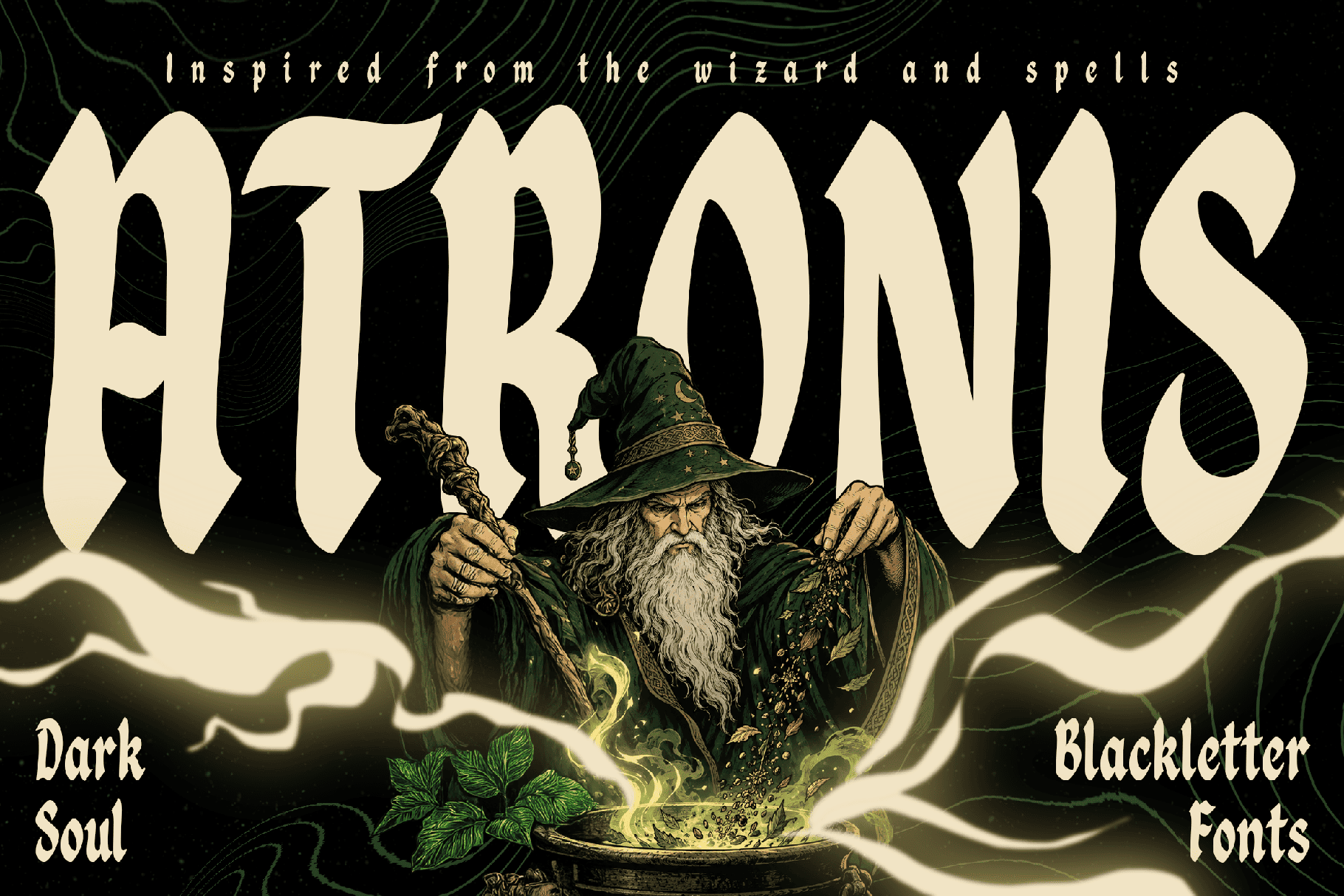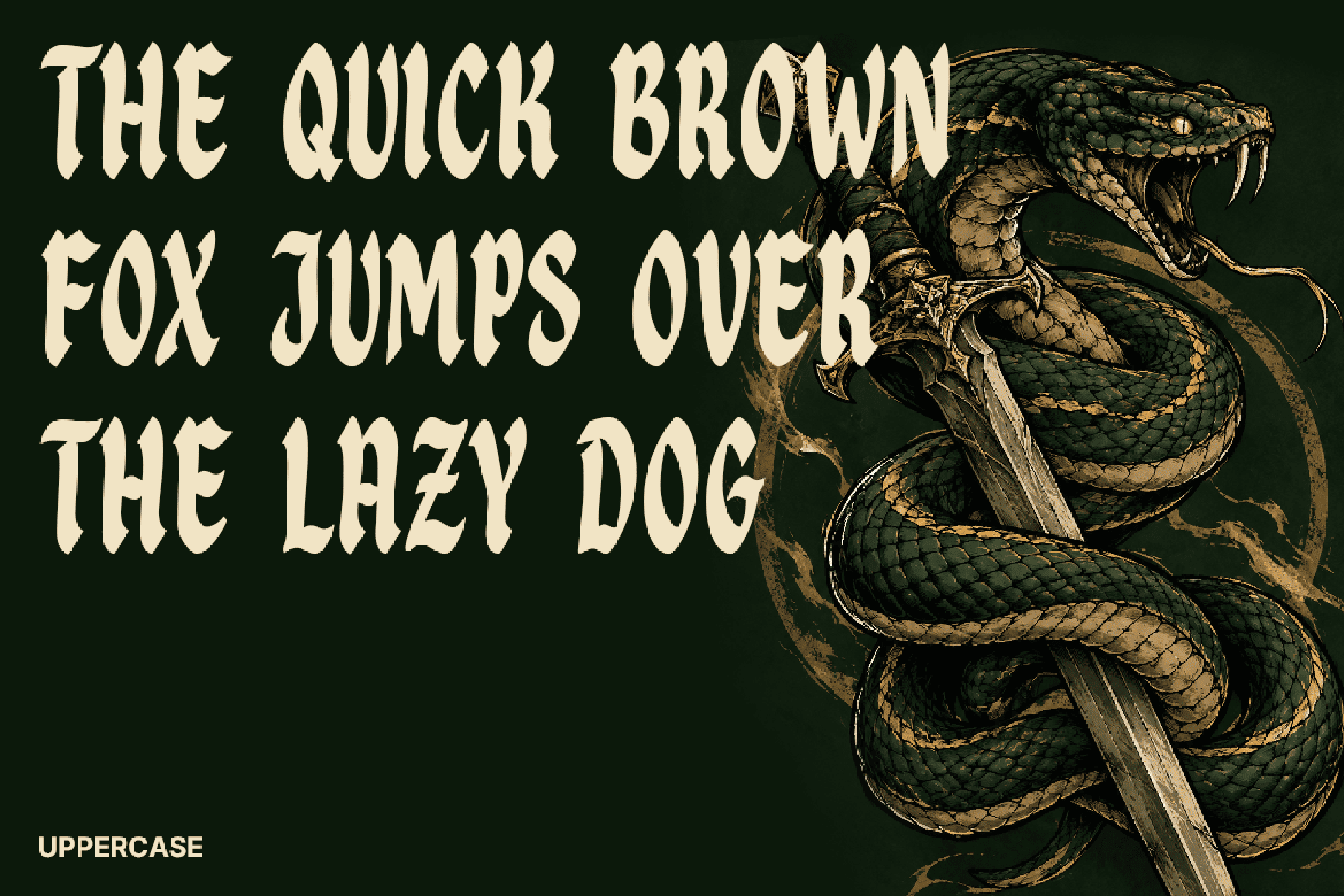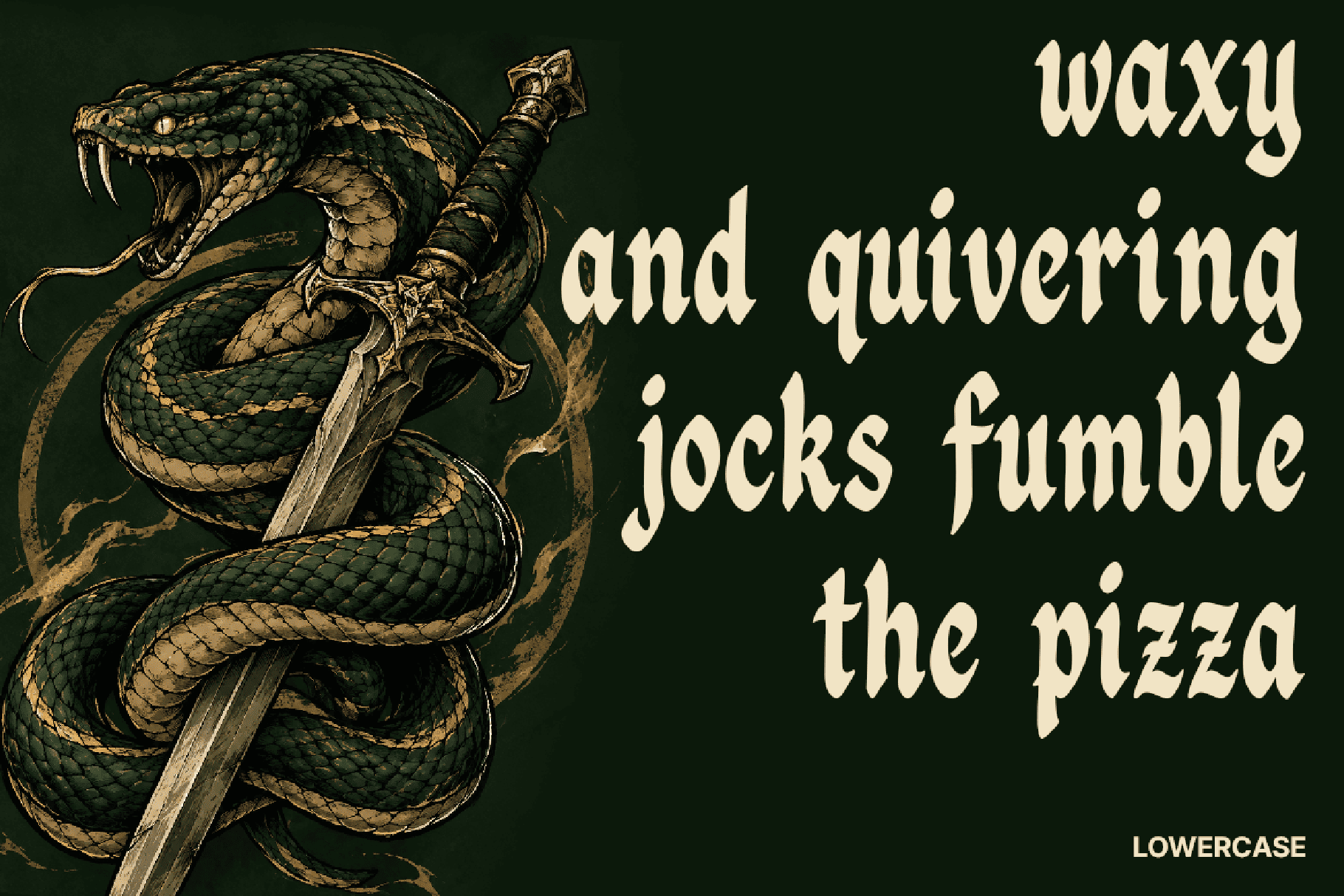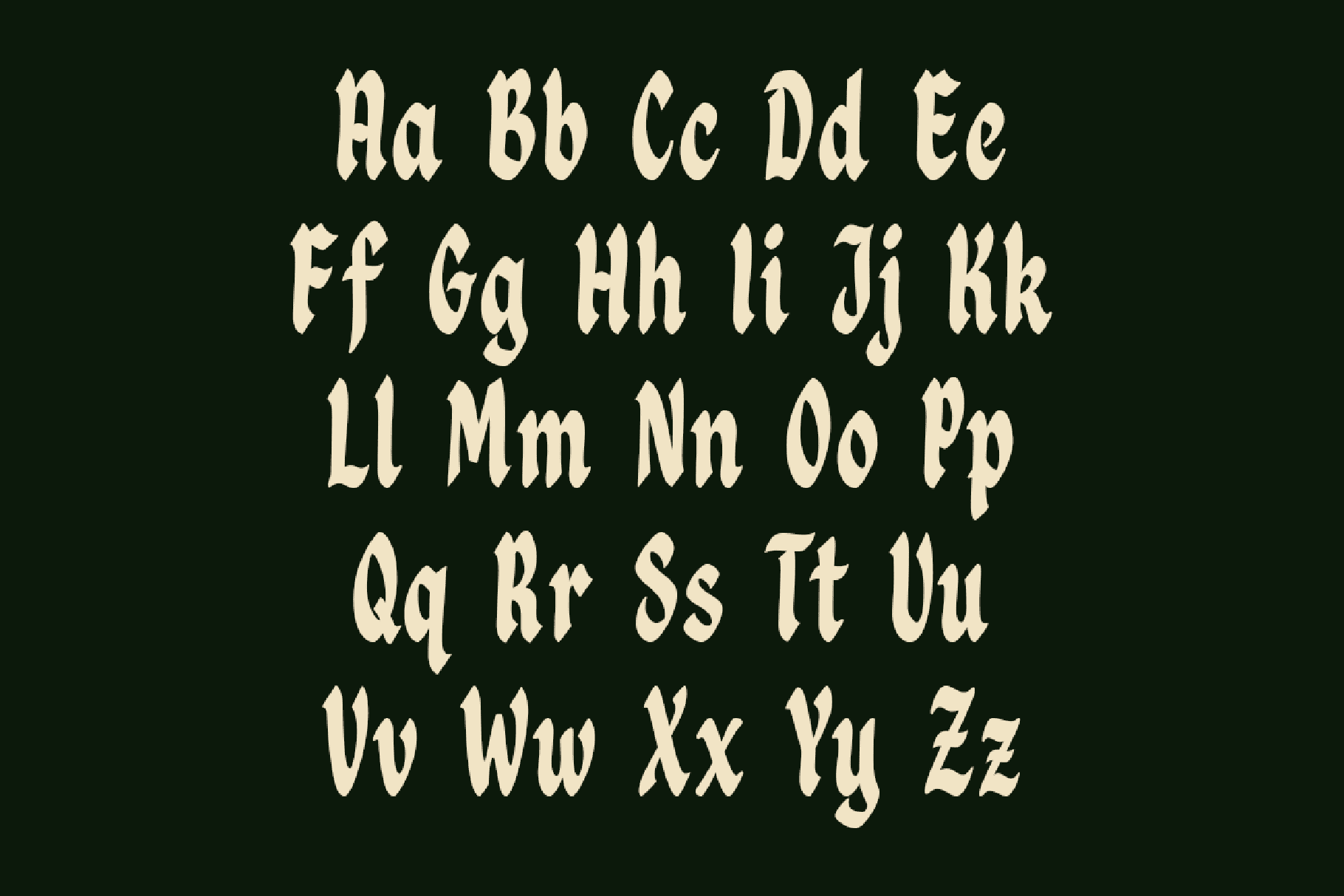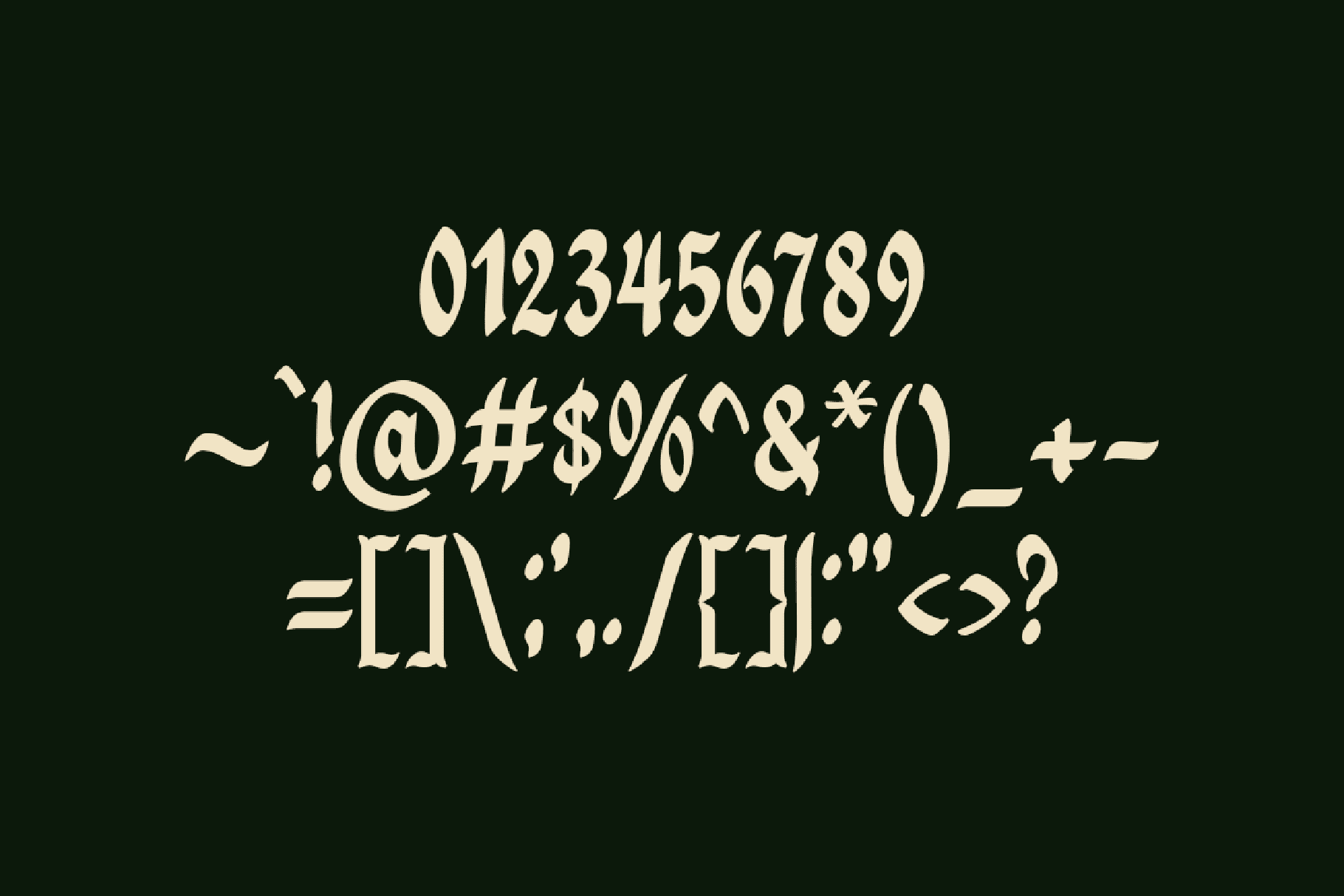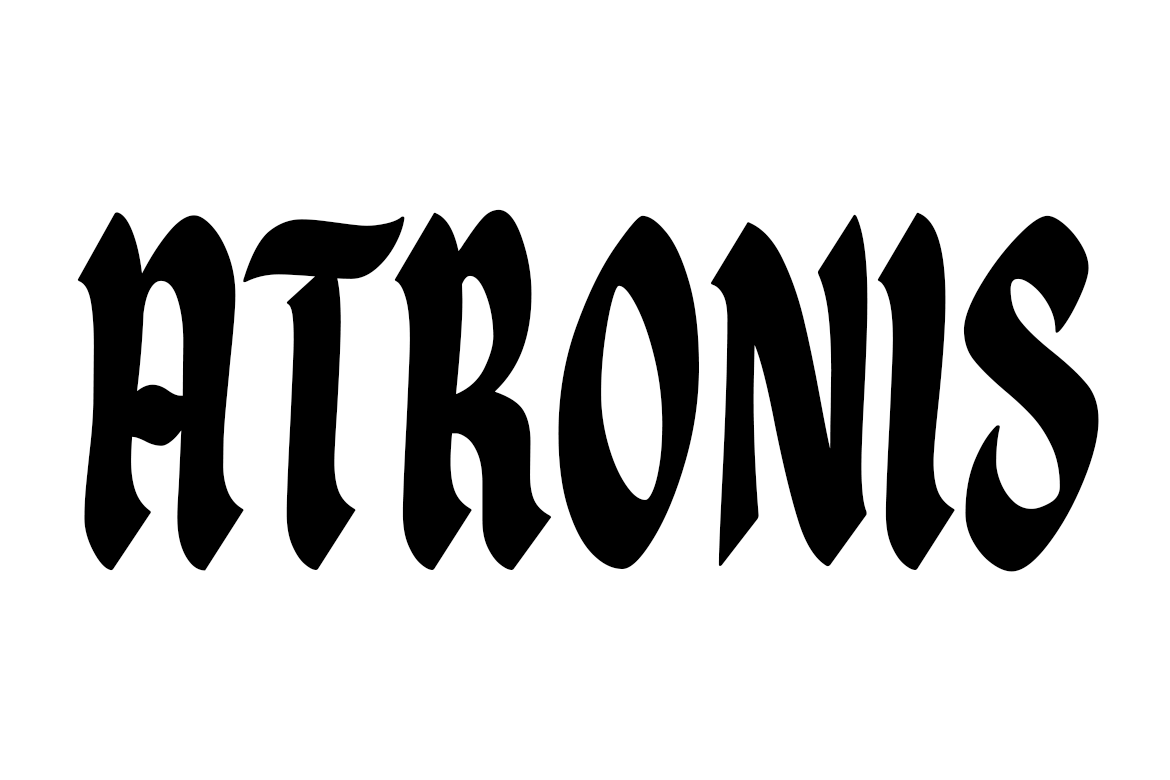
Atronis – Pop Blackletter Fonts
THE POWER OF ANCIENT SPELLS, BORN ANEW.
Meet ATRONIS, a powerful, contemporary blackletter font designed to dominate. It is not just a typeface; it is a primal echo from the dawn of printed language, reimagined for the digital age.
Inspired by the cryptic scrawl found in forbidden grimoires and the towering gothic architecture of wizarding lore, ATRONIS captures the dark mood and feels of an ancient era. But this isn’t your grandfather’s blackletter.
We took the intimidating, rigid structures of historical Fraktur and Textura and did something radical: we softened them. With a masterful application of round corners, we have tempered the darkness, creating a unique “dark-pop” aesthetic that perfectly bridges gothic power with a clean, modern style. This subtle rounding makes ATRONIS feel approachable and fresh, ready for the street art and editorial designs of today, while retaining its authentic, mystical soul.
DESIGNER’S TIP: Pair ATRONIS with a clean, high-contrast sans-serif font for a powerful, high-fashion editorial look.
CRACK THE ANCIENT CODE. COMMAND YOUR CANVAS.
Don’t settle for the ordinary. Give your work the dark, pop-infused power it deserves.